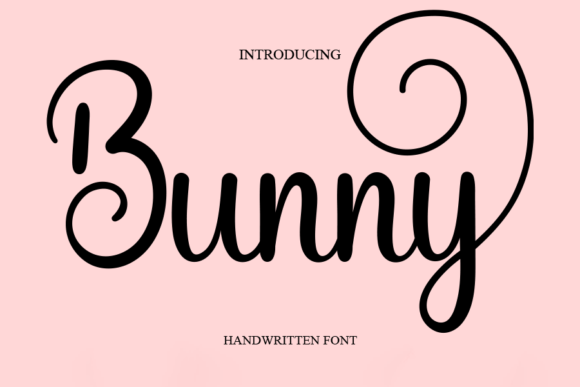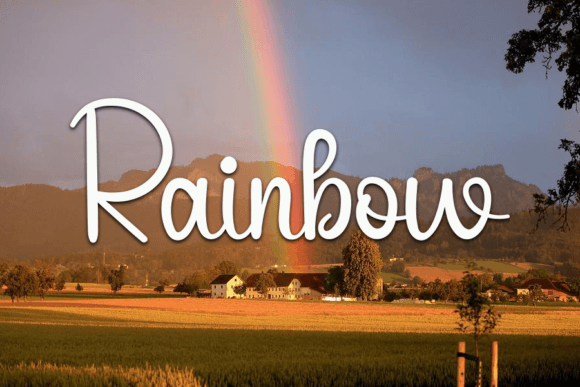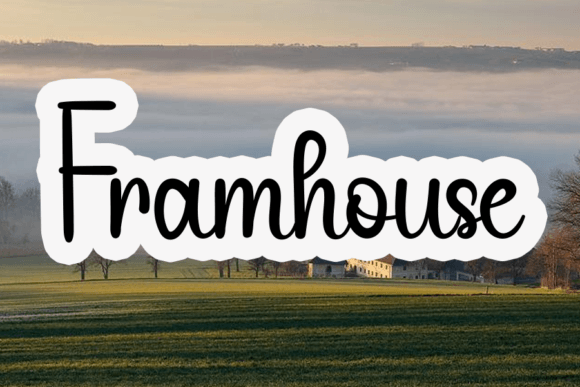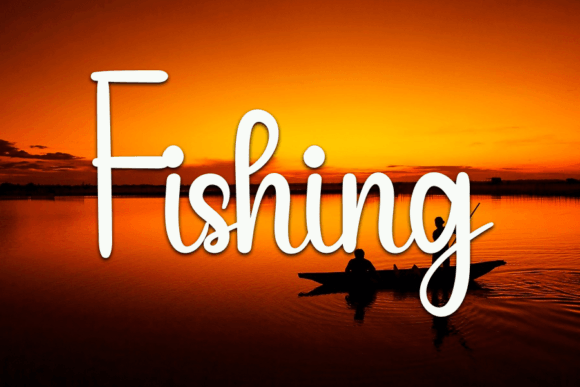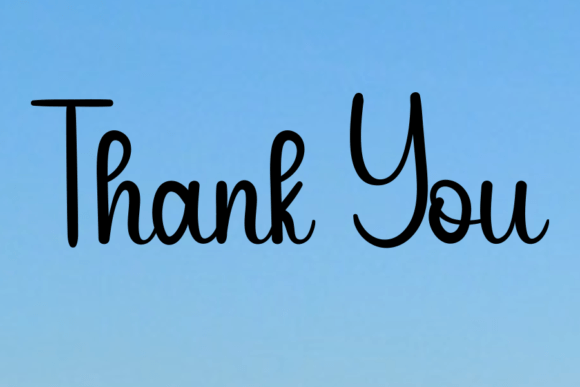
Bunny Font
About Bunny Font
“Bunny” is a simple handwritten font that offers versatility across a wide range of applications, from greeting cards to headlines. With its straightforward and natural design, this font is sure to infuse your next project with a simple and approachable feel.
The simplicity of “Bunny” is a key feature, making it adaptable to various design contexts. Whether you’re working on casual, friendly projects or aiming for a more down-to-earth aesthetic, “Bunny” effortlessly fits different styles.
The handwritten quality of “Bunny” contributes to its approachable and authentic character. The characters have a natural flow, creating an overall design that feels unpretentious and genuine.
The versatility of “Bunny” ensures its suitability for a range of design applications. Whether you’re creating warm and inviting greeting cards or looking to make a statement with headlines, “Bunny” adds a simple and natural aesthetic to resonate with a diverse audience.
In summary, “Bunny” is more than just a font; it’s a design asset that brings simplicity, approachability, and authenticity to your projects. Whether you’re working on personal cards or professional headlines, “Bunny” ensures that your text exudes a straightforward and natural charm, enhancing the overall appeal of your designs.